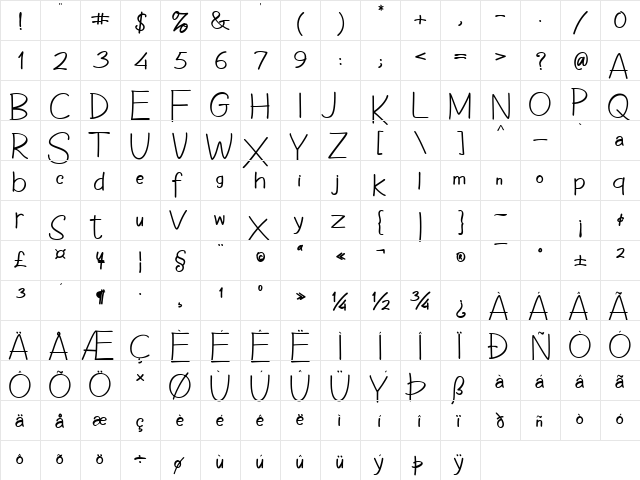
Lighthouse TreasureFree Regular Free Font
Lighthouse TreasureFree Regular
Foundry: Letterhanna Studio - Font Maker
Designer: Rinaldo Hasibuan
Design Context for Lighthouse TreasureFree
Lighthouse TreasureFree is a composed and adaptable typeface that performs quietly and consistently across a wide range of design contexts. Its slender proportions lend an understated elegance to any composition.